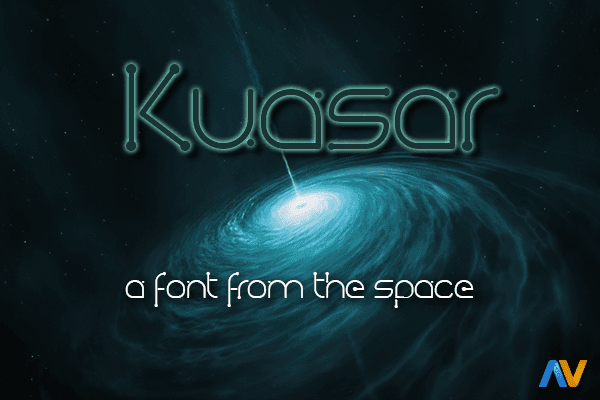
Kuasar Font Free
Exploring the Kuasar Font: A Journey Through Space-inspired Typography
In the cosmic realm of design, where creativity knows no bounds, the Kuasar font stands out as a stellar starburst of innovation. Crafted by the talented Alberto Villanueva in 201...